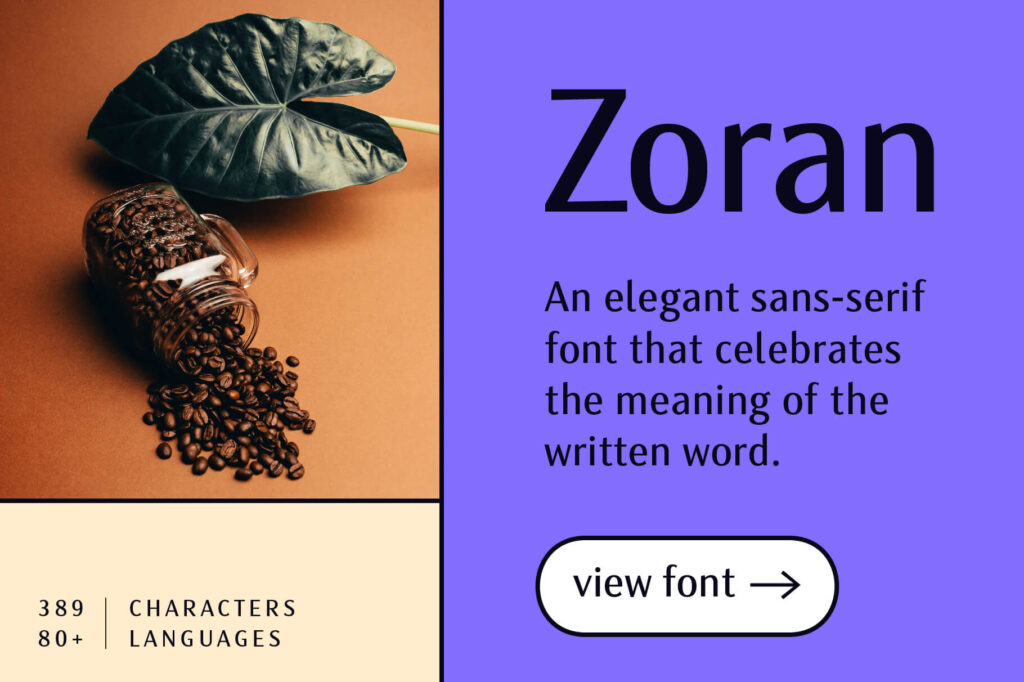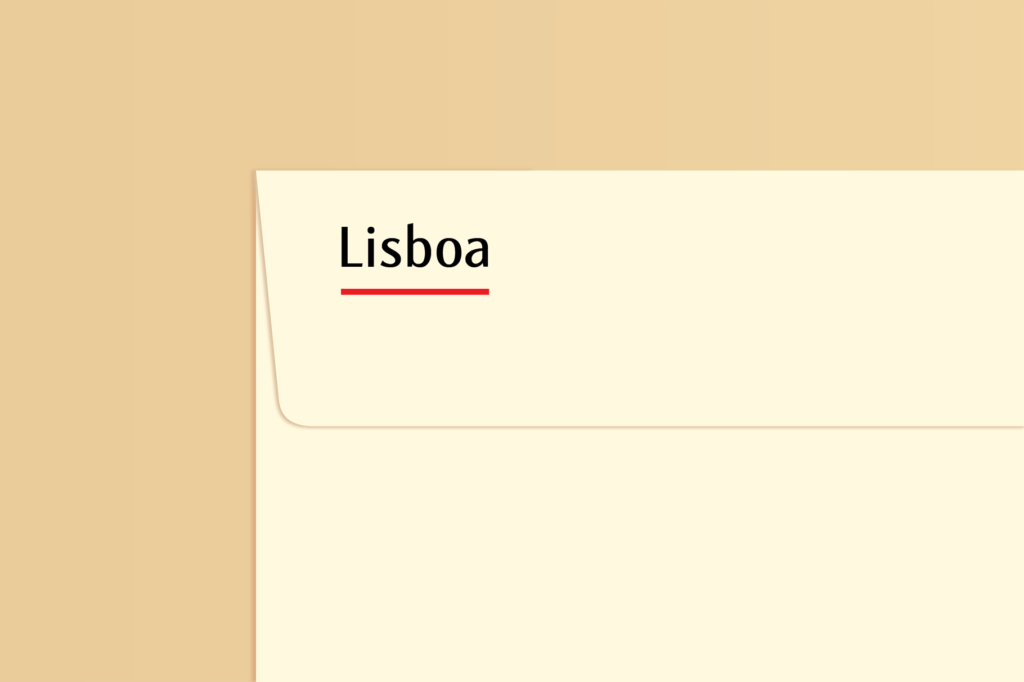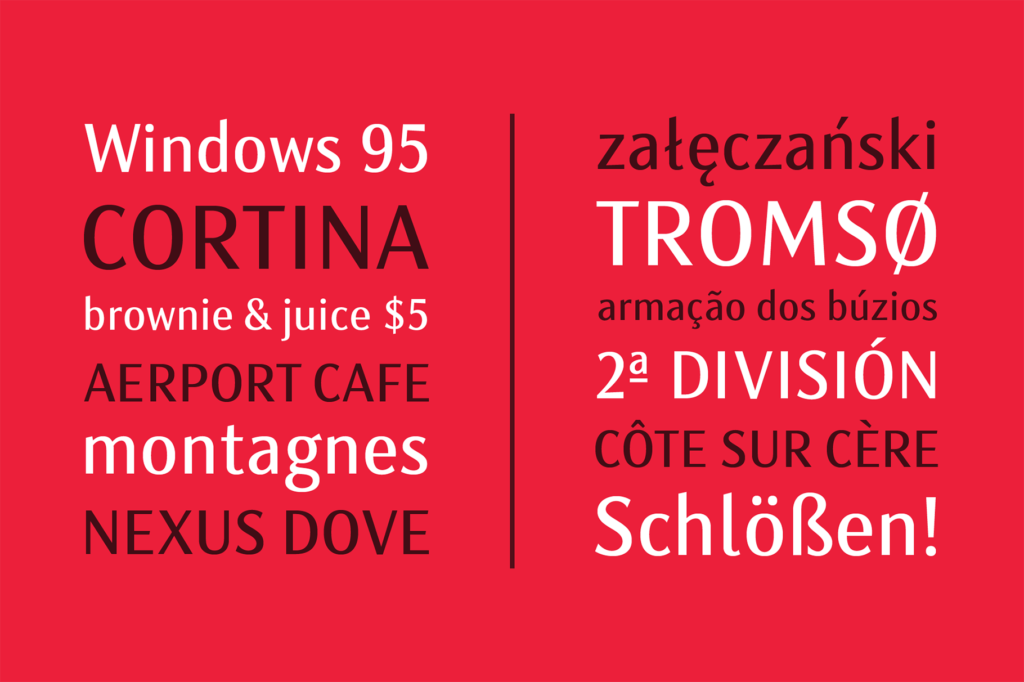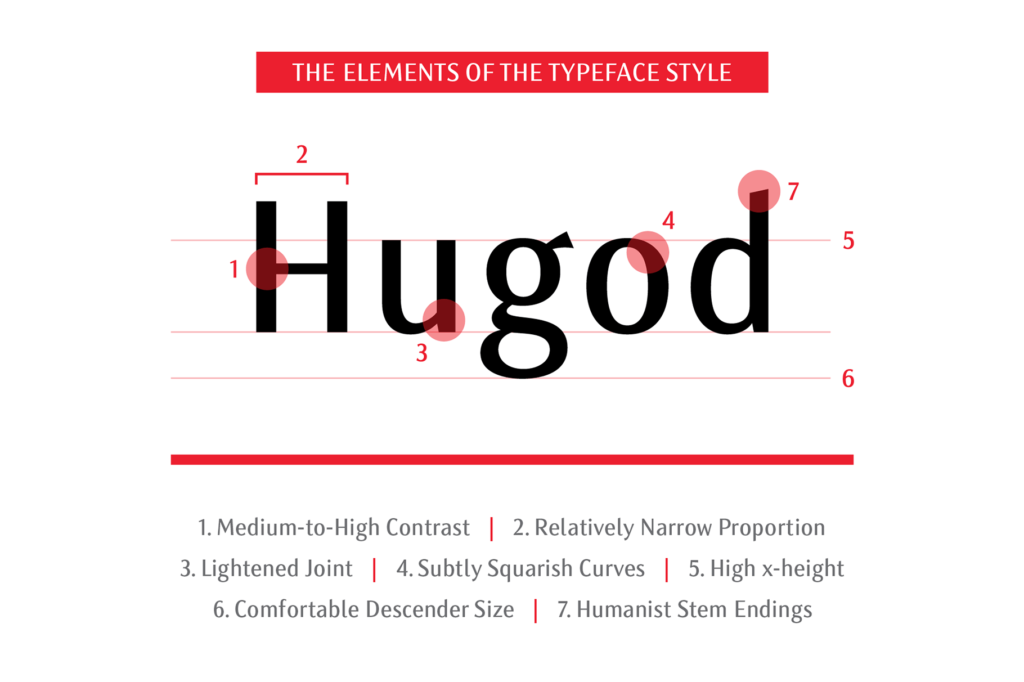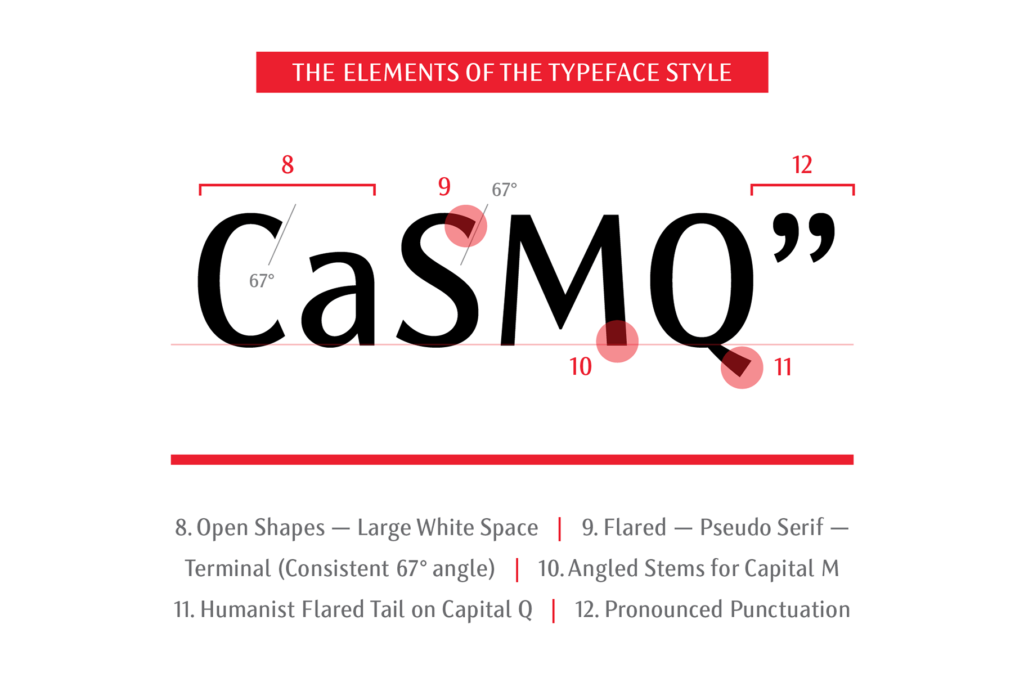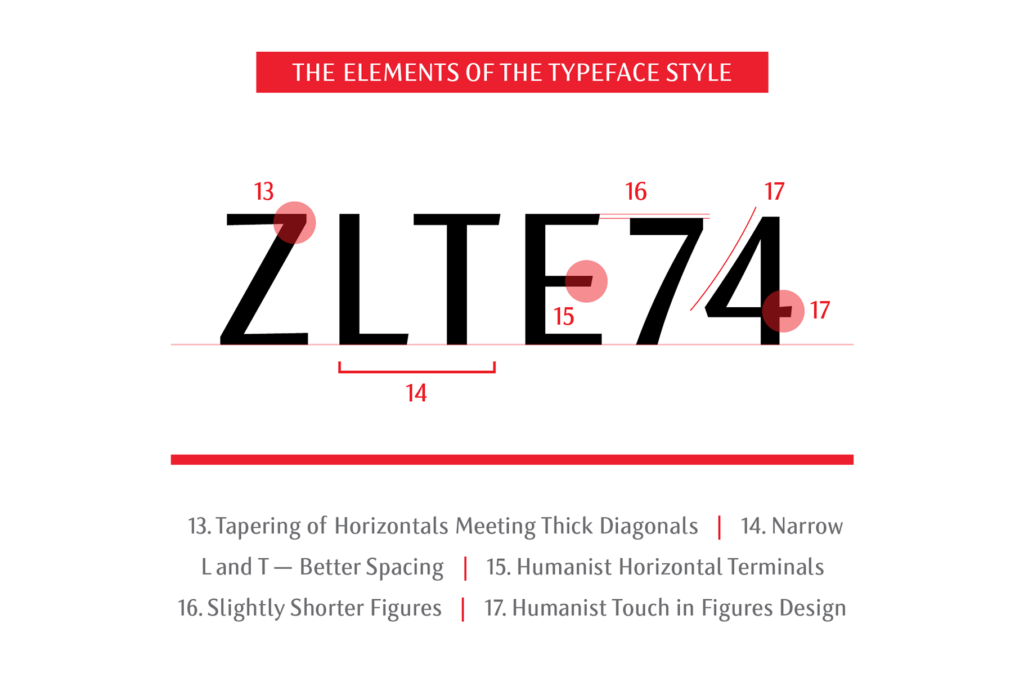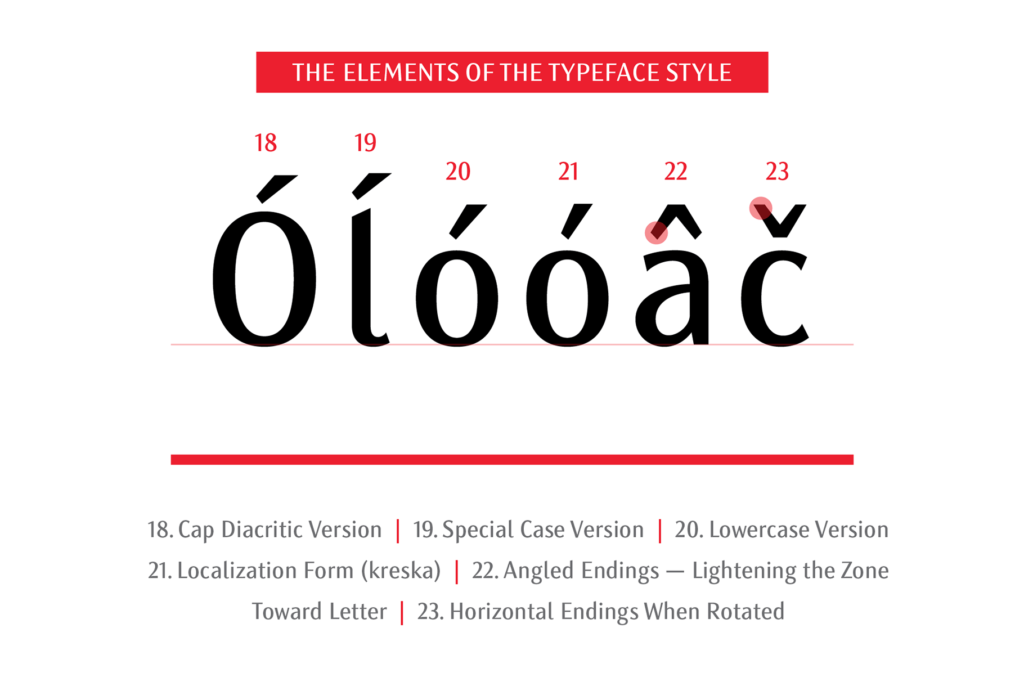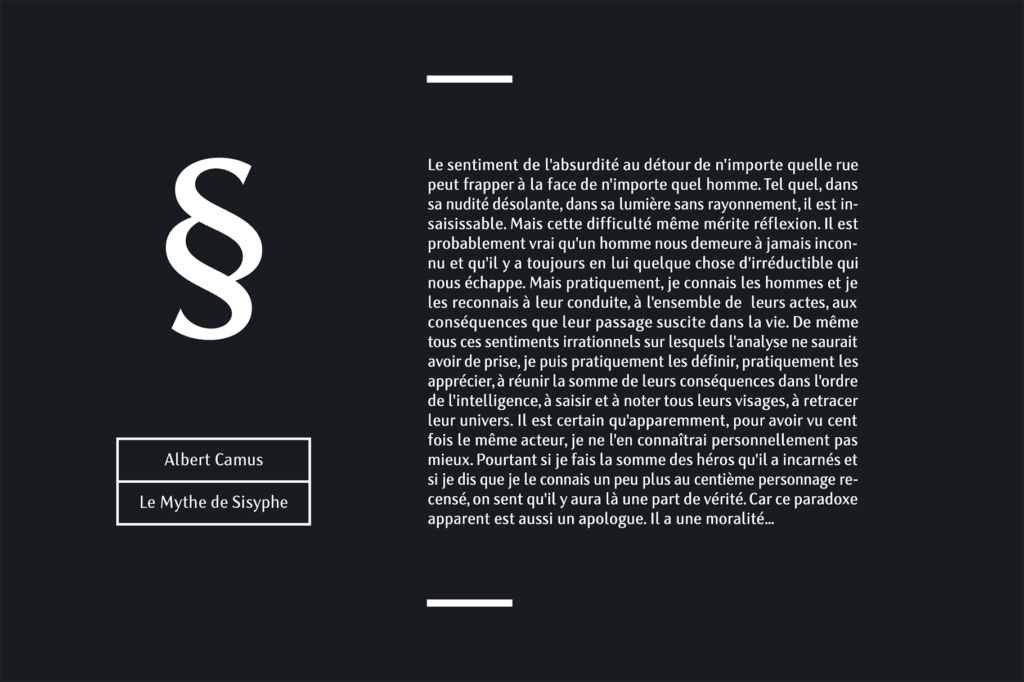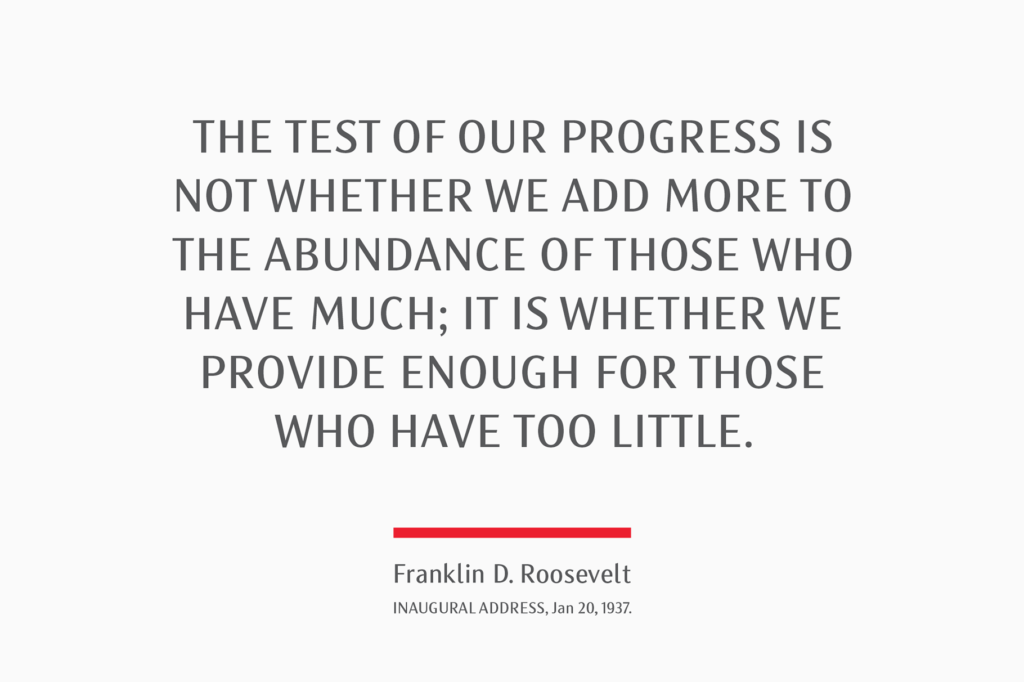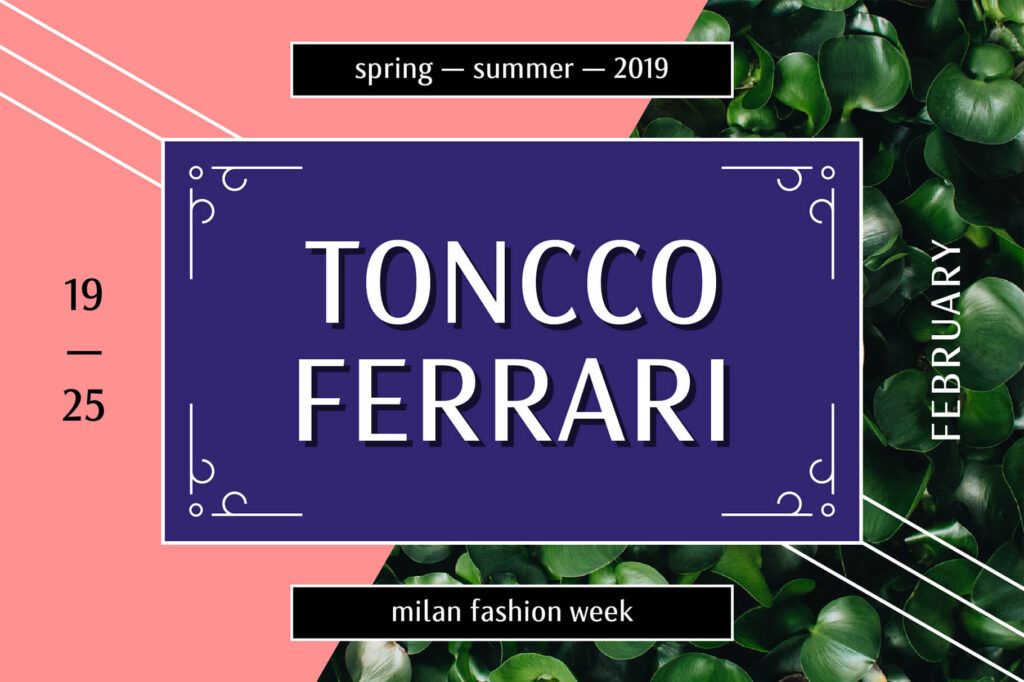
ZORAN
HUMANIST SANS FONT (1 STYLE)
ZORAN is a new elegant sans-serif font that celebrates the meaning of the written word. Its design represents the sweet spot between rationality and style. The idea was to make a clean, legible typeface with a strong aesthetic appeal on the other side.
That means that Zoran has its own carefully refined personality. It’s serious but romantic, functional but attractive. Meeting these different keywords in one balanced visual voice, this font is suitable for various types of usage, as shown in the promo images. From body text (small sizes) where it builds a very even texture (the relation of white and black on the page), over headlines (medium size), up to very big sizes in specific graphic design situations. It’s suitable for on-screen usage and is thoroughly print tested on paper.
Its typographic identity is characterized by the simplicity of letter shapes, relatively narrow proportion, and mid-to-high contrast (a ratio between thick vertical and thin horizontal elements of the letter). This brings a kind of renaissance dignity and elegance. Open letter shapes (i.e. G, S, a, s), subtly squarish curves, high x-height (the height of the lowercase letters), and comfortable descender size (deepest point of the letters p, g, y…) leave a generous white space which increases legibility and readability.
The warm and quaint look of the Zoran typeface is enhanced with — what is in typography called — humanist elements of its design. Angled vertical and horizontal endings as well as flared (pseudo-serif) terminals on curved open characters subtly resemble the broad-nib pen movement of the Renaissance masters.
A lot of other characters in the set bear this kind of subtle humanist feeling — angled vertical stems of capital M, slightly curved and flared tail on Q, the open upper part of ampersand loop, a bit curved diagonal and wedged arm on figure 4 — to mention a few. This logic is consistently applied throughout the whole character set building a unified and convincing visual tone.
- Extensive set of 389 characters supports over 80 Latin-based languages.
- Special attention was given to the design of accents, which are clearly pronounced and adjusted to fit the various contexts they appear in, as shown in the promo images.